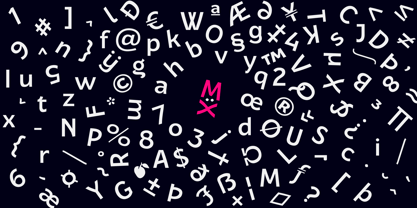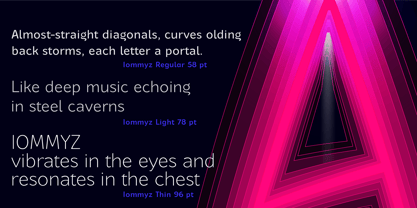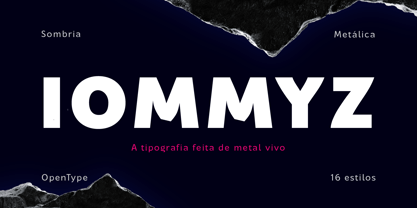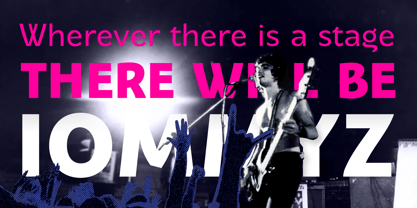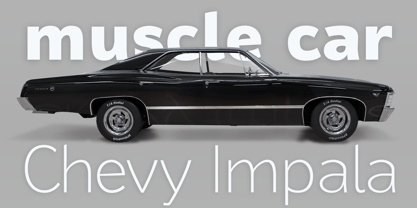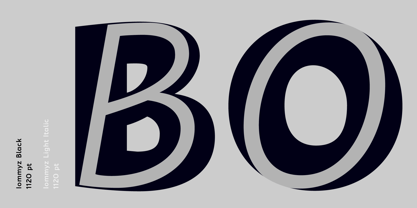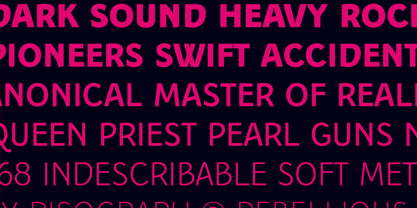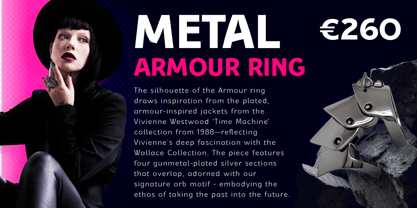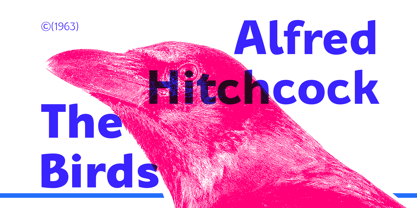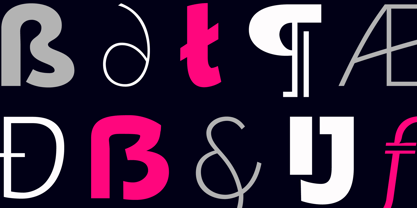
Iommyz
by Rafaeiro Typeiro
The Iommyz Font Family was designed by Rafael Ferreira and published by Rafaeiro Typeiro. Iommyz contains 16 styles and family package options. More about this family
Iommyz is a typeface forged from the purest metal. It was crafted through sophisticated and ancient refining methods, extracting only the finest essence of its strength. This type family has the power to make people feel a shiver down their spine while soothing their anguish (like a bat drains blood and blowing over the wound with its leathery wings). It is a typography designed for book covers, music albums, and poster for live events. Its dark atmosphere fits perfectly with the haunting stories of true crime podcasts. Its name was inspired by the legendary Black Sabbath guitarist Tony Iommi, fused with the name of vocalist Ozzy.
Technically, the font works beautifully for uppercase titles with its uniquely shaped characters, as well as for lowercase in subtitles. Its construction resembles the Époque typeface, but its diagonals are almost straight, with a slight outward curve, as if containing an immense internal pressure.